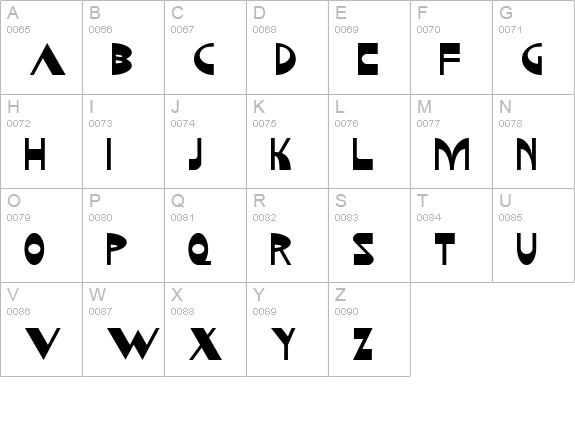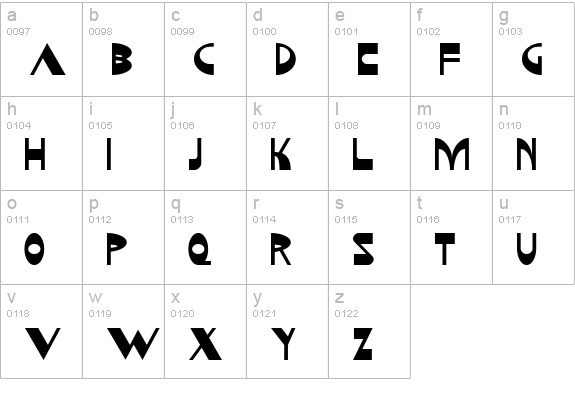
Kozmonauta is a modern and stylish font that brings a futuristic and space-age feel to any design project. With its sleek lines and bold appearance, this font is perfect for creating eye-catching headlines, logos, and posters. The unique geometric shapes and clean design make Kozmonauta a versatile choice for both digital and print media. What's even better is that Kozmonauta is available for free download at FontsMarket.com. This means you can easily access this amazing font and start using it in your projects right away. Whether you're working on a sci-fi themed project or just looking to add a touch of modernity to your designs, Kozmonauta is the perfect choice. Download it today and let your creativity take flight with this stunning font.